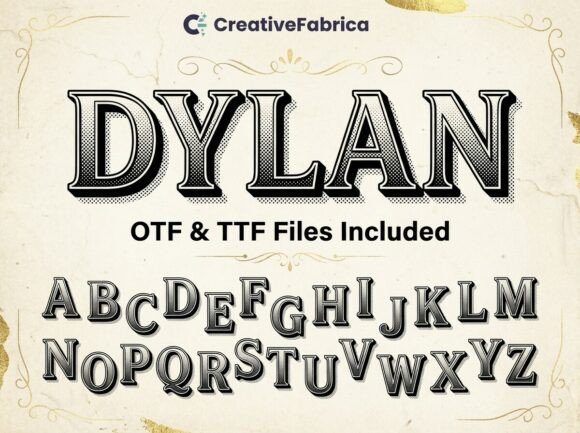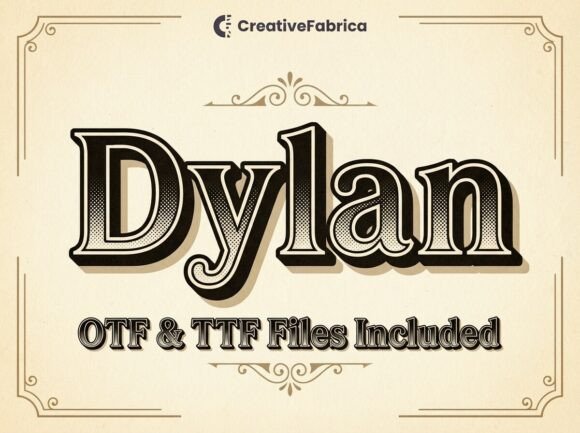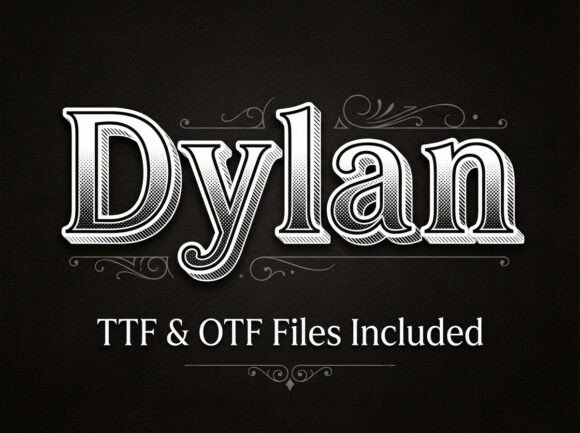
Dylan Font: Elevate Your Designs with a Touch of Vintage Elegance
Are you looking for a font that exudes sophistication, craftsmanship, and a hint of nostalgia? Look no further than Dylan, a stunning display font that embodies the essence of classic 19th-century engraving. This beautiful typeface is perfect for designers and crafters seeking to add a touch of vintage elegance to their work.
The Essence of Classic Engraving
Dylan Font is a masterful recreation of traditional engraving techniques, bringing a sense of prestige and timeless authority to your designs. Its sophisticated 3D “layered” effect, complete with intricate halftone shading and a crisp white outline, makes it pop against any background. This font is sure to elevate your work, whether you’re creating vintage-style logos, premium whiskey labels, barbershop branding, or heritage-inspired posters.
Key Features of Dylan Font
- Robust Serif Structure: Dylan’s serif structure is sturdy and confident, providing a solid foundation for your designs.
- Ornamental Flair: The font’s ornamental details add a touch of elegance and sophistication, turning every word into a hand-crafted masterpiece.
- 3D Layered Effect: The 3D layered effect gives Dylan a sense of depth and dimensionality, making it perfect for display purposes.
- Intricate Halftone Shading: The halftone shading adds a level of texture and visual interest, giving the font a sense of tactility.
- Crisp White Outline: The crisp white outline ensures that the font stands out against any background, making it versatile and easy to use.
Perfect for Vintage-Inspired Designs
Dylan Font is ideal for designers and crafters looking to create vintage-inspired designs that evoke a sense of nostalgia and heritage. Its classic feel and sophisticated aesthetic make it perfect for:
- Vintage-Style Logos: Create logos that look like they’ve been crafted with care and attention to detail.
- Premium Whiskey Labels: Add a touch of luxury and sophistication to your whiskey labels.
- Barbershop Branding: Create branding that exudes a sense of tradition and heritage.
- Heritage-Inspired Posters: Design posters that look like they’ve been plucked straight from the 19th century.
Why Choose Dylan Font?
With Dylan Font, you can add a touch of vintage elegance to your designs, setting them apart from the rest. Here are just a few reasons why you should choose Dylan:
- Unique and Distinctive: Dylan’s unique blend of classic and modern elements makes it a standout font that’s sure to grab attention.
- High-Quality Design: The font’s intricate details and sophisticated aesthetic make it a high-quality design that’s perfect for professional use.
- Versatile: Dylan’s versatility makes it easy to use in a variety of contexts, from logos and labels to posters and branding.
- Easy to Read: Despite its ornate details, Dylan is surprisingly easy to read, making it perfect for display purposes.
In conclusion, Dylan Font is a stunning display font that captures the essence of classic 19th-century engraving. Its sophisticated aesthetic, robust serif structure, and ornamental flair make it perfect for vintage-inspired designs that require a touch of elegance and sophistication. Whether you’re a designer or crafter, Dylan Font is sure to elevate your work and set it apart from the rest.